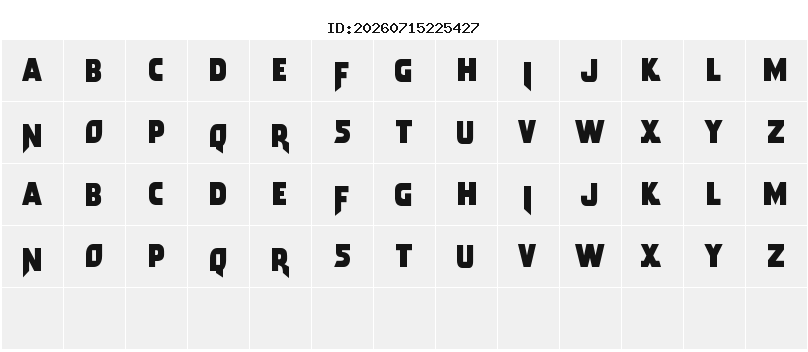
• Font Name: Arwing
• Font Style: Arwing
• Full Font Name: Arwing
• PostScript Name: Arwing
• Character Count: 54
About Arwing.ttf
Arwing.ttf is a modern, elegant sans-serif font designed for ultimate readability and visual harmony. Perfect for branding, headlines, web design, and print materials.